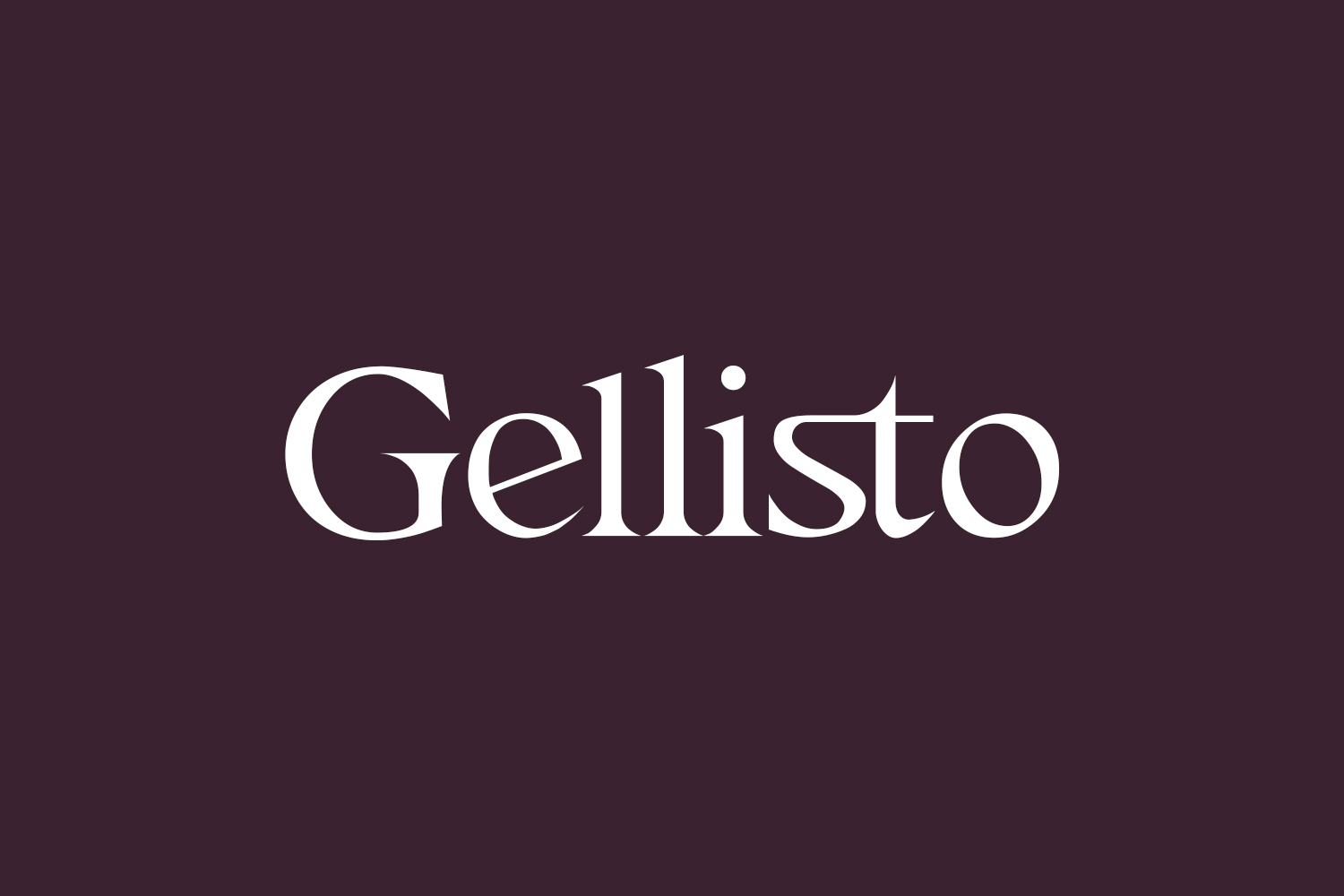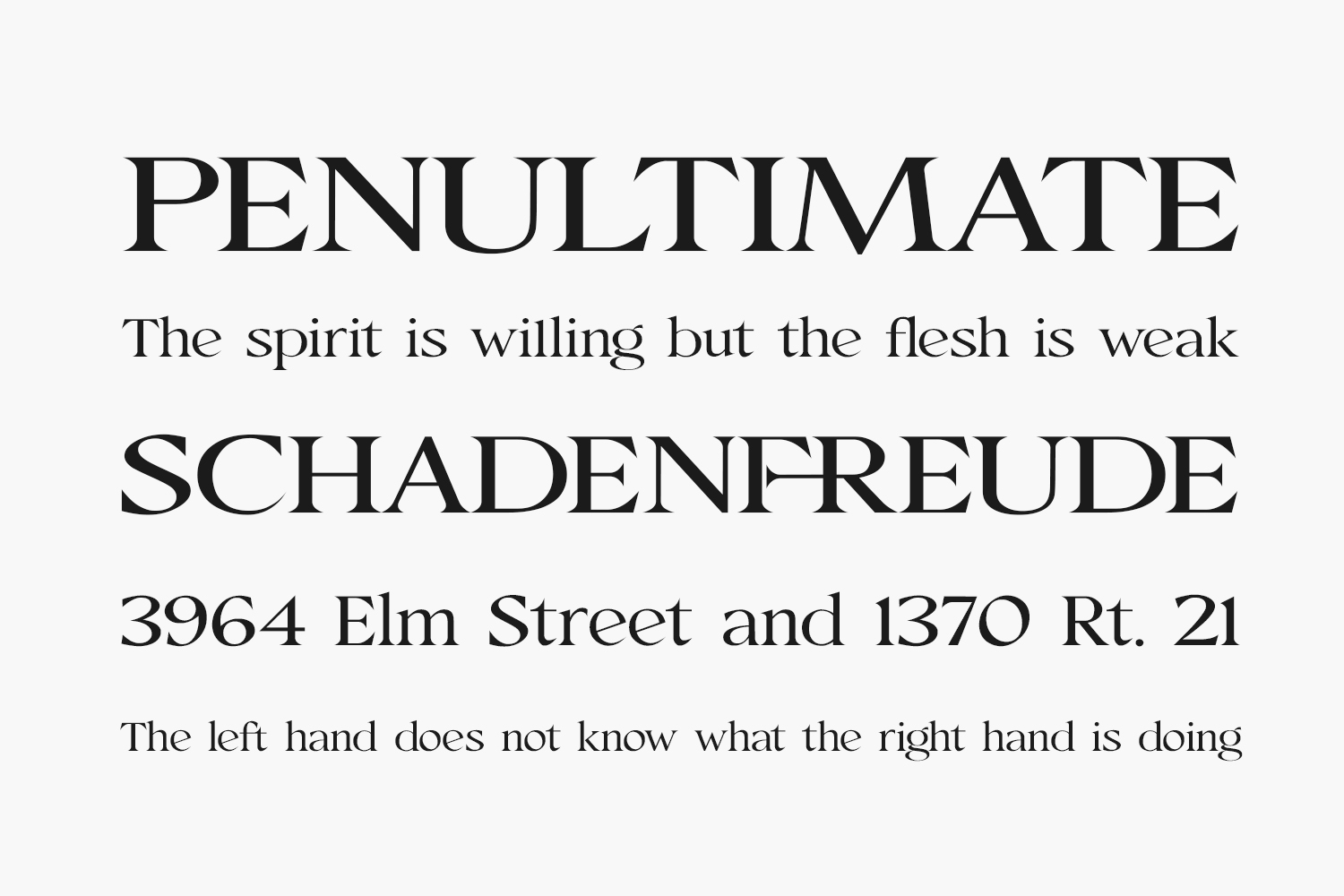
Explore Gellisto Free Font, a sophisticated and stylish sans-serif typeface perfect for headings, logos, branding, magazines, product packaging, invitations, and beyond. Elevate your design repertoire by adding Gellisto to your collection and discover endless inspiration with its modern allure. Gellisto Free Font was designed by Font Kingdom and is free for personal use only. Please purchase the full version for commercial use.